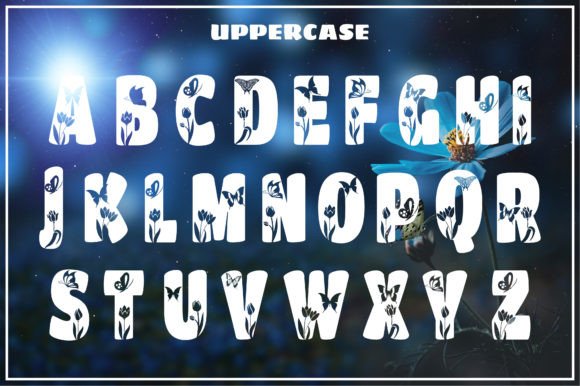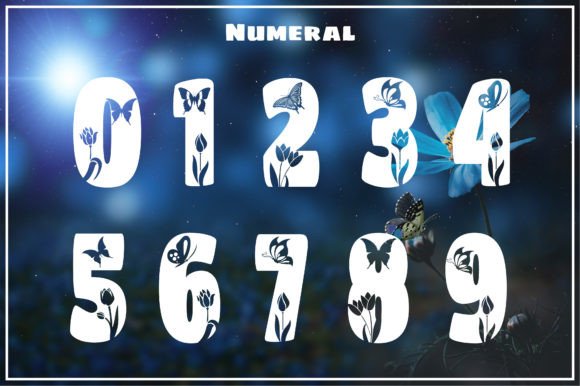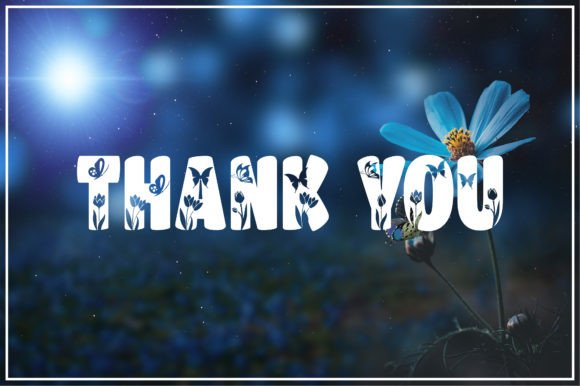
Introducing the Delightful Butterfly Font: Add a Touch of Whimsy to Your Designs
Are you looking for a font that can add a dash of playfulness and joy to your designs? Look no further than the Butterfly Font, a charming display font that is perfect for a variety of creative projects. As its name suggests, this font is inspired by the beautiful and delicate butterfly, and its unique design is sure to capture the attention of your audience.
What is Butterfly Font?
Butterfly Font is a butterfly-themed display font that is designed to bring a touch of whimsy and fun to your designs. Its playful and carefree style makes it an excellent choice for a wide range of projects, from cartoon-related designs and children’s games to quotes, titles, brand names, book covers, posters, and more.
Key Features of Butterfly Font
So, what makes Butterfly Font so special? Here are some of its key features:
- Unique and playful design: The Butterfly Font features a one-of-a-kind design that is sure to stand out from the crowd. Its delicate and intricate details are inspired by the beauty of butterflies, making it a great choice for projects that require a touch of elegance and sophistication.
- Highly versatile: Whether you’re designing a children’s book, a cartoon, or a poster, the Butterfly Font is a great choice. Its playful style makes it suitable for a wide range of projects, from fun and quirky to elegant and refined.
- Easy to read: Despite its playful design, the Butterfly Font is easy to read and understand, making it perfect for use in titles, headings, and other applications where readability is important.
- Scalable: The Butterfly Font is designed to be scalable, which means it can be used in a variety of sizes and applications without losing its clarity or elegance.
Uses of Butterfly Font
The Butterfly Font is a versatile font that can be used in a wide range of projects, including:
- Cartoon-related designs: The playful and whimsical design of the Butterfly Font makes it a great choice for cartoon-related designs, such as character names, titles, and captions.
- Children’s games: The Butterfly Font is perfect for use in children’s games, such as titles, instructions, and game elements.
- Quotes and titles: The elegant and refined design of the Butterfly Font makes it a great choice for use in quotes and titles, adding a touch of sophistication and elegance to your designs.
- Brand names: The unique and memorable design of the Butterfly Font makes it a great choice for use in brand names, helping to create a lasting impression on your audience.
- Book covers: The Butterfly Font is a great choice for use in book covers, adding a touch of whimsy and fun to your design.
- Posters: The playful and eye-catching design of the Butterfly Font makes it perfect for use in posters, helping to grab the attention of your audience.
Why Choose Butterfly Font?
So, why should you choose the Butterfly Font for your next project? Here are just a few reasons:
- Adds a touch of joy: The Butterfly Font is designed to bring a touch of joy and whimsy to your designs, making it perfect for projects that require a playful and carefree style.
- Unique and memorable: The unique design of the Butterfly Font makes it a great choice for projects that require a memorable and eye-catching font.
- Highly versatile: The Butterfly Font is a versatile font that can be used in a wide range of projects, from fun and quirky to elegant and refined.
| Author | Apple Craft |
In conclusion, the Butterfly Font is a delightful and charming display font that is perfect for adding a touch of whimsy and fun to your designs. Its unique and playful design makes it a great choice for a wide range of projects, from cartoon-related designs and children’s games to quotes, titles, brand names, book covers, posters, and more. So why not give the Butterfly Font a try and see how it can bring a touch of joy and elegance to your next project?
Whether you’re a designer, crafter, or DIY enthusiast, the Butterfly Font is a great addition to your font collection. Its ease of use, scalability, and readability make it a practical choice for a wide range of applications. So go ahead, get creative, and let the Butterfly Font bring a touch of magic to your designs!